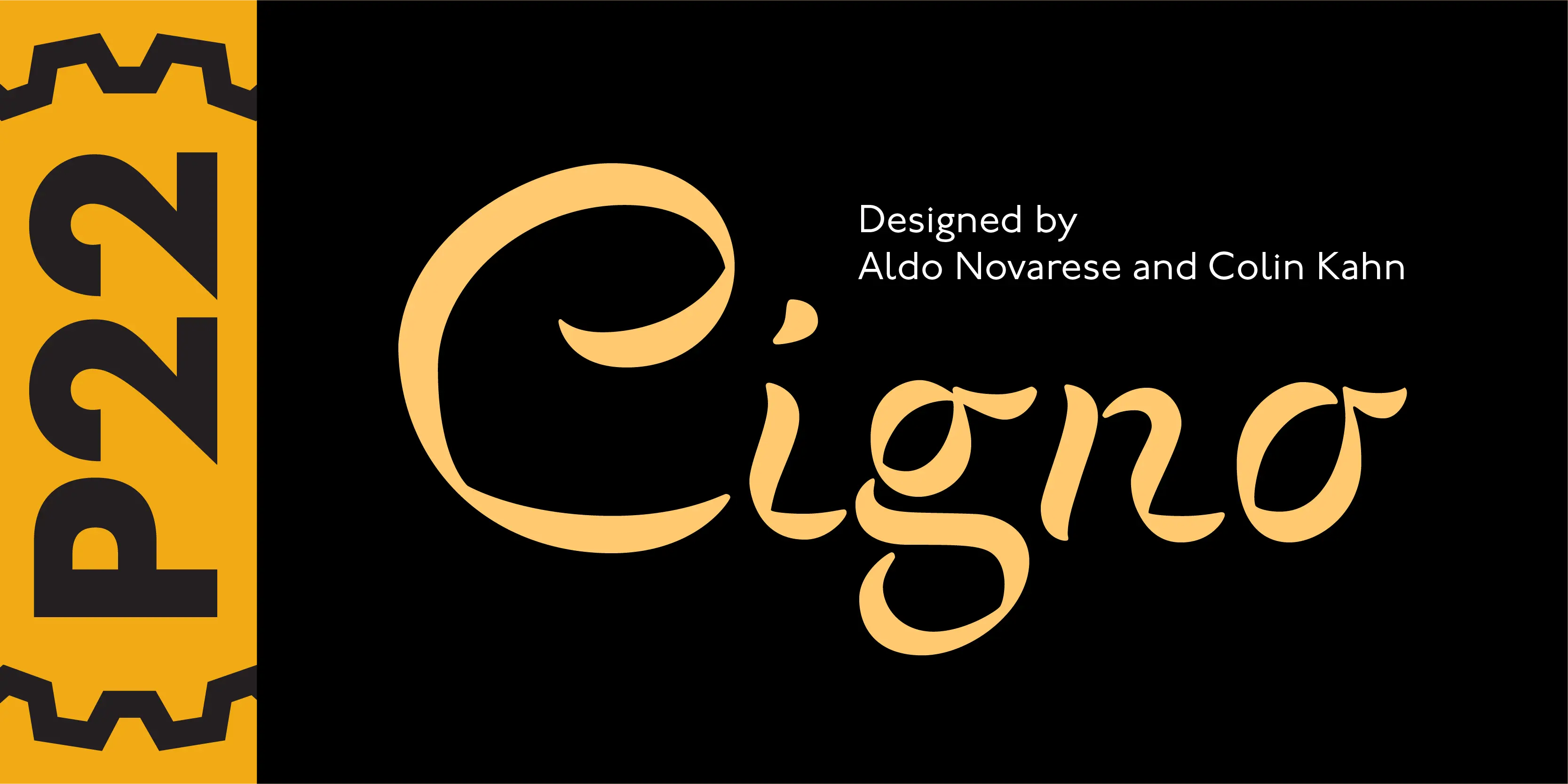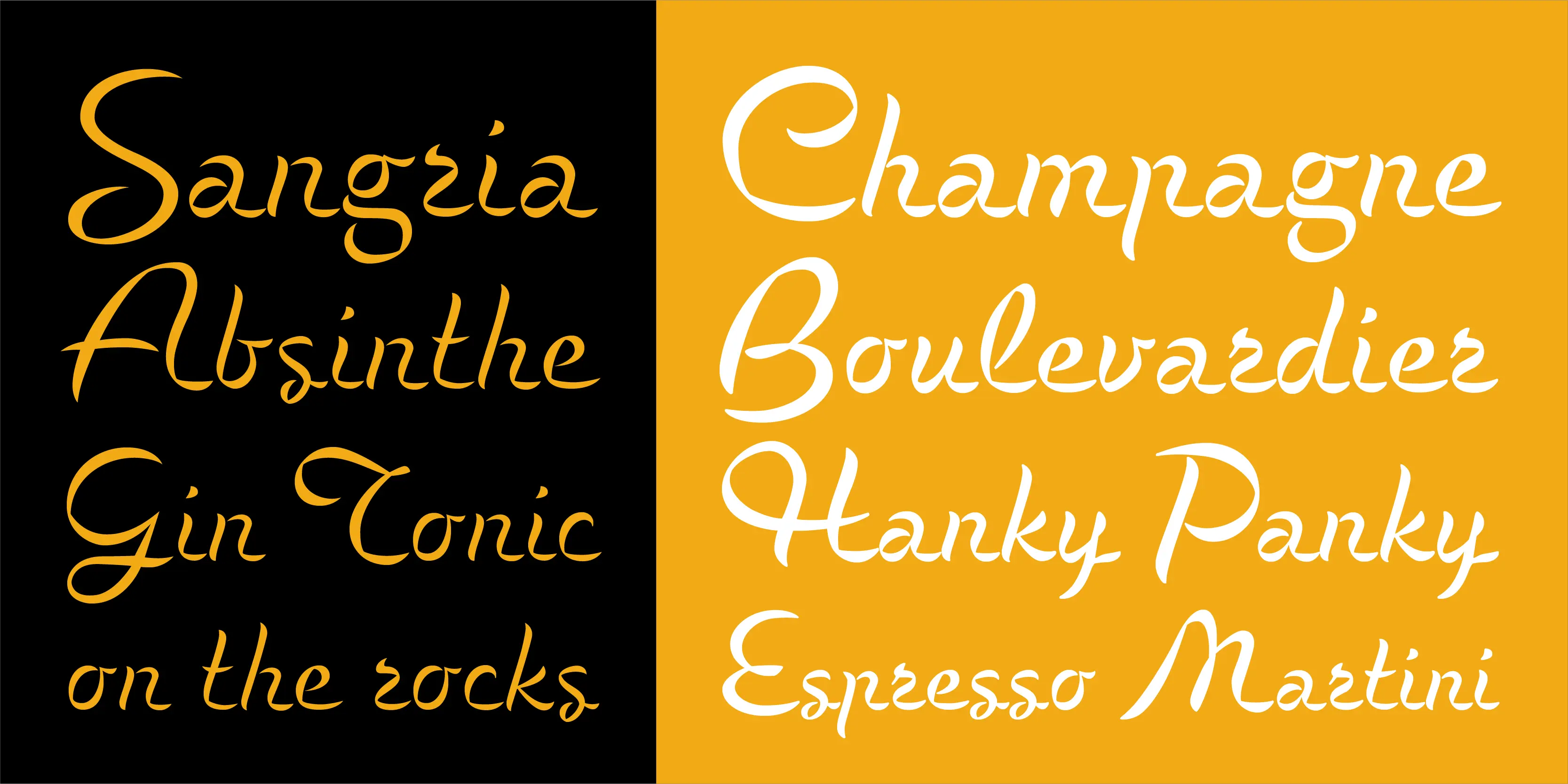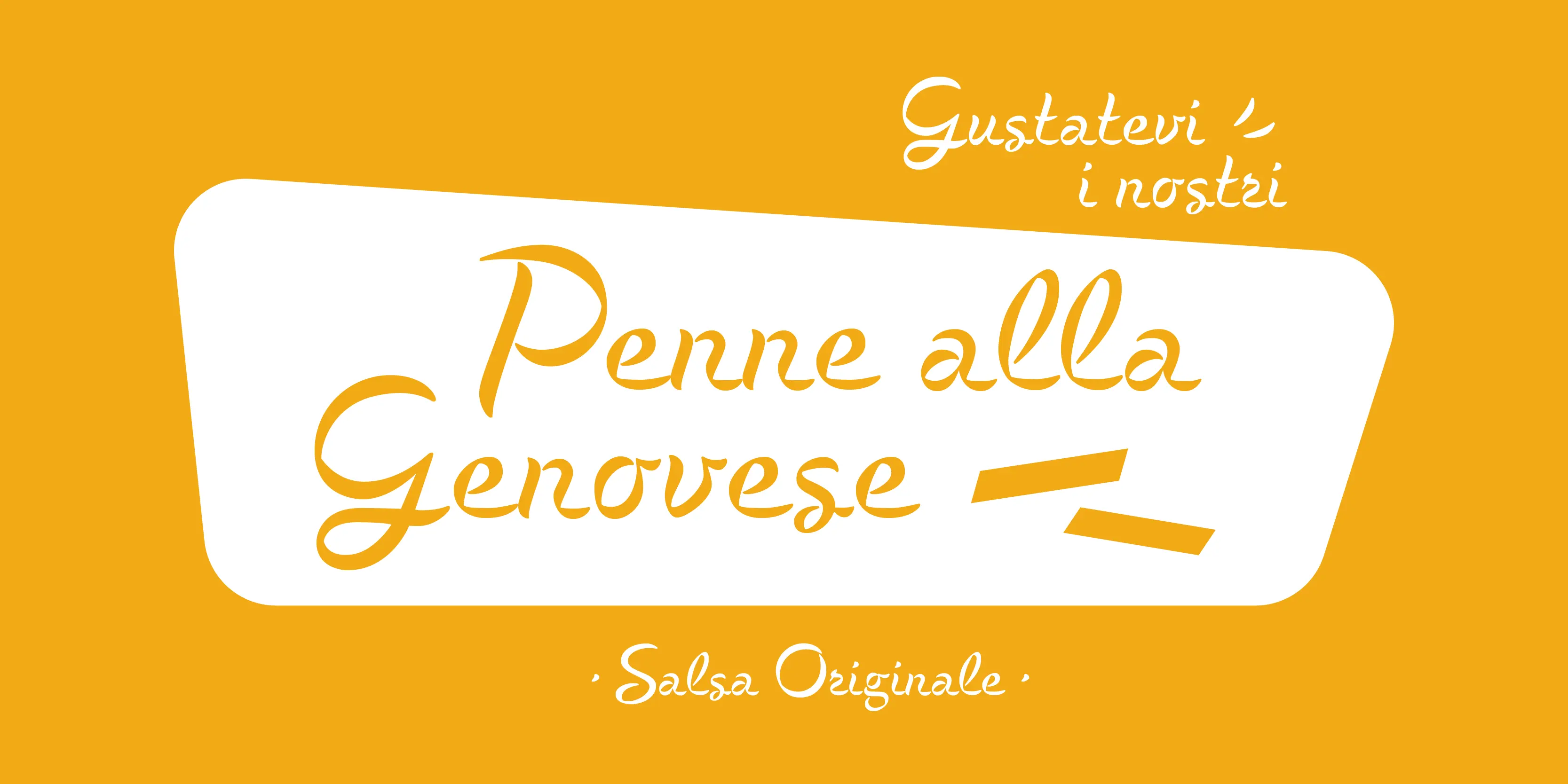
Cigno Font Family
Cigno
P22 Cigno is a new digitization of the 1950s Italian typeface by Aldo Novarese for the Nebiolo foundry. This semi-formal script has a definite mid-century European flavor suitable for menus, invitations and poster work. Along with the accurate rendition of the regular weight, designer Colin Kahn has added a lighter companion font for another variation on Cigno.
• Titling Capitals
Stylistic Set 1
Titling